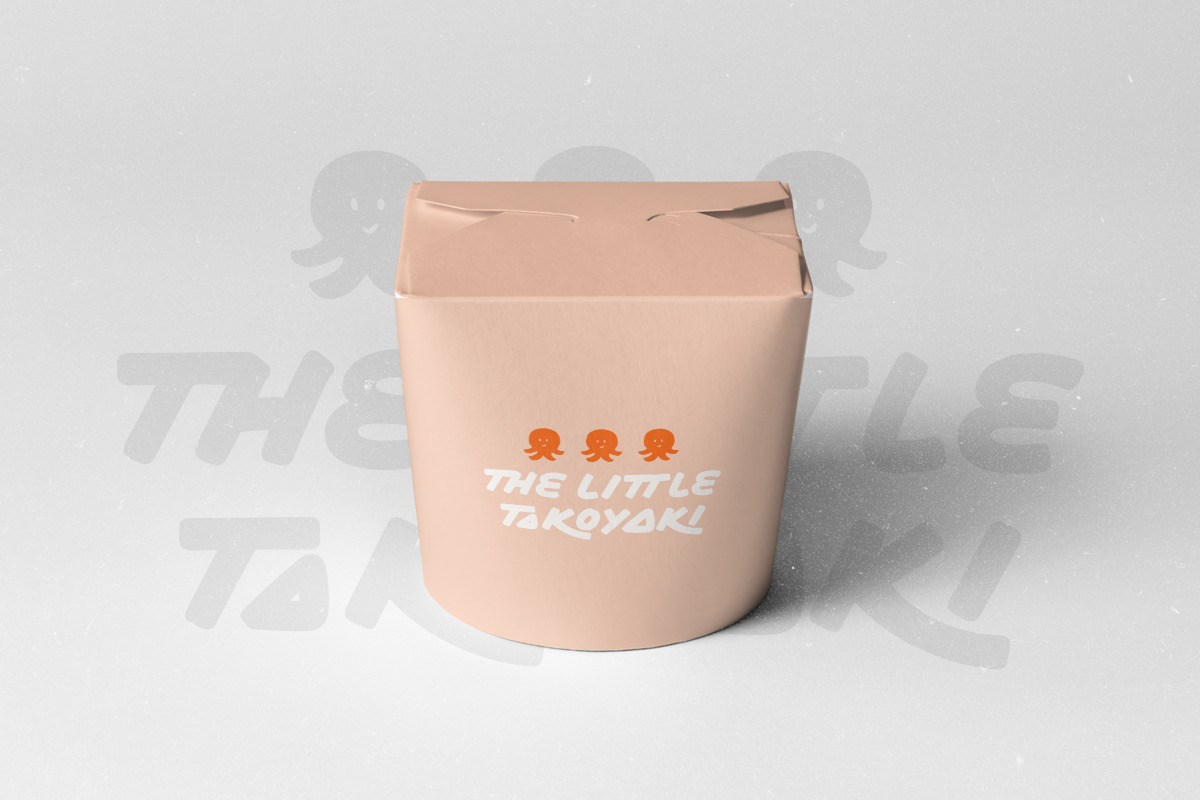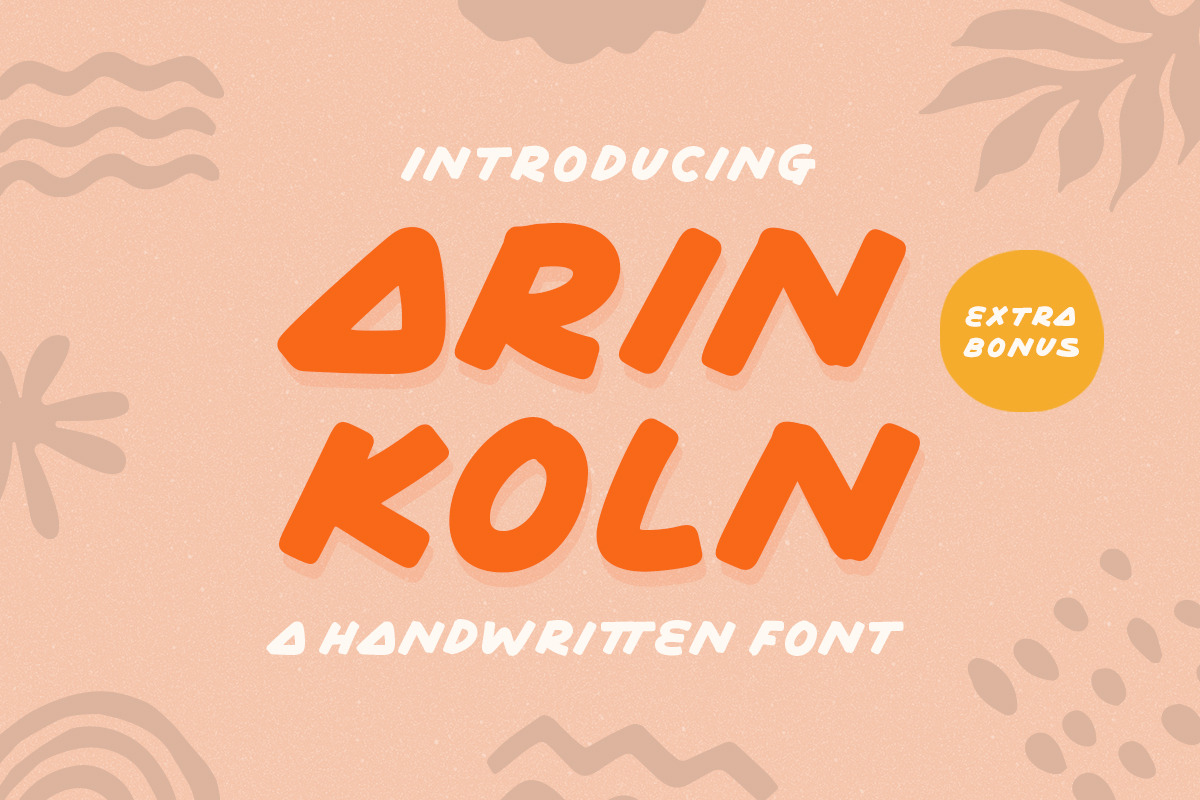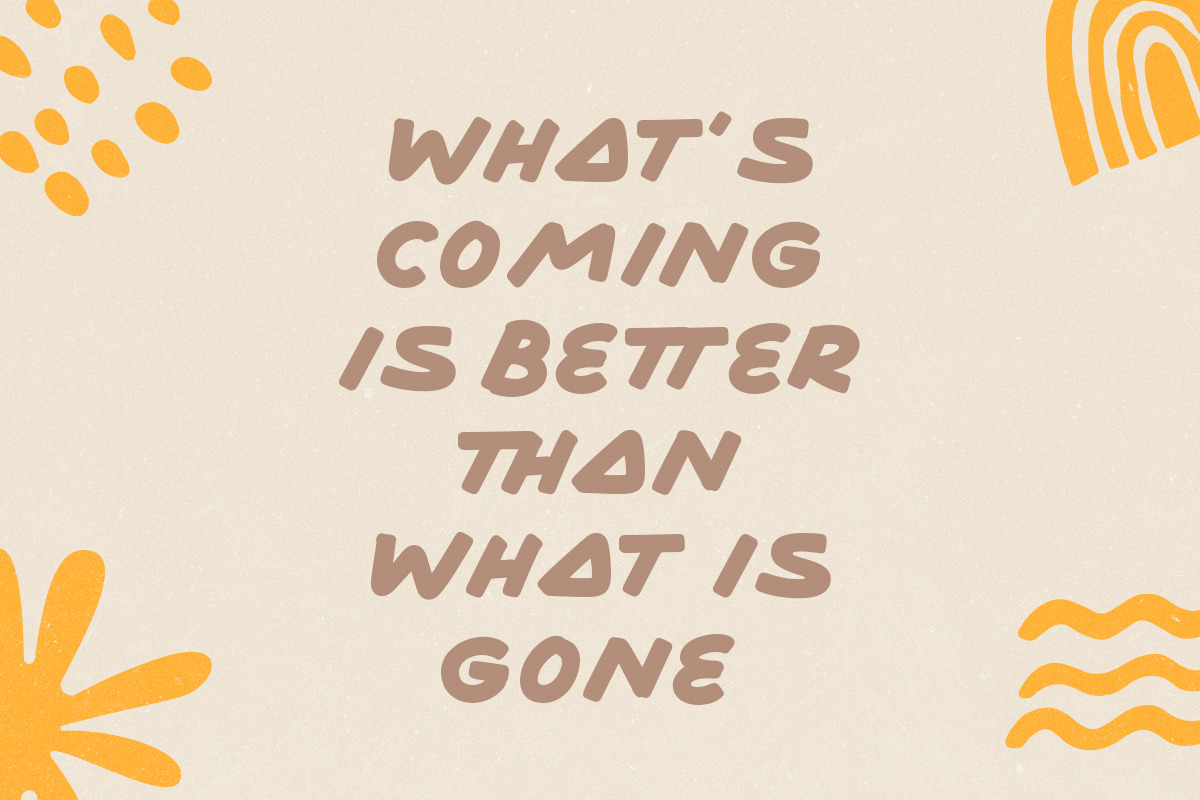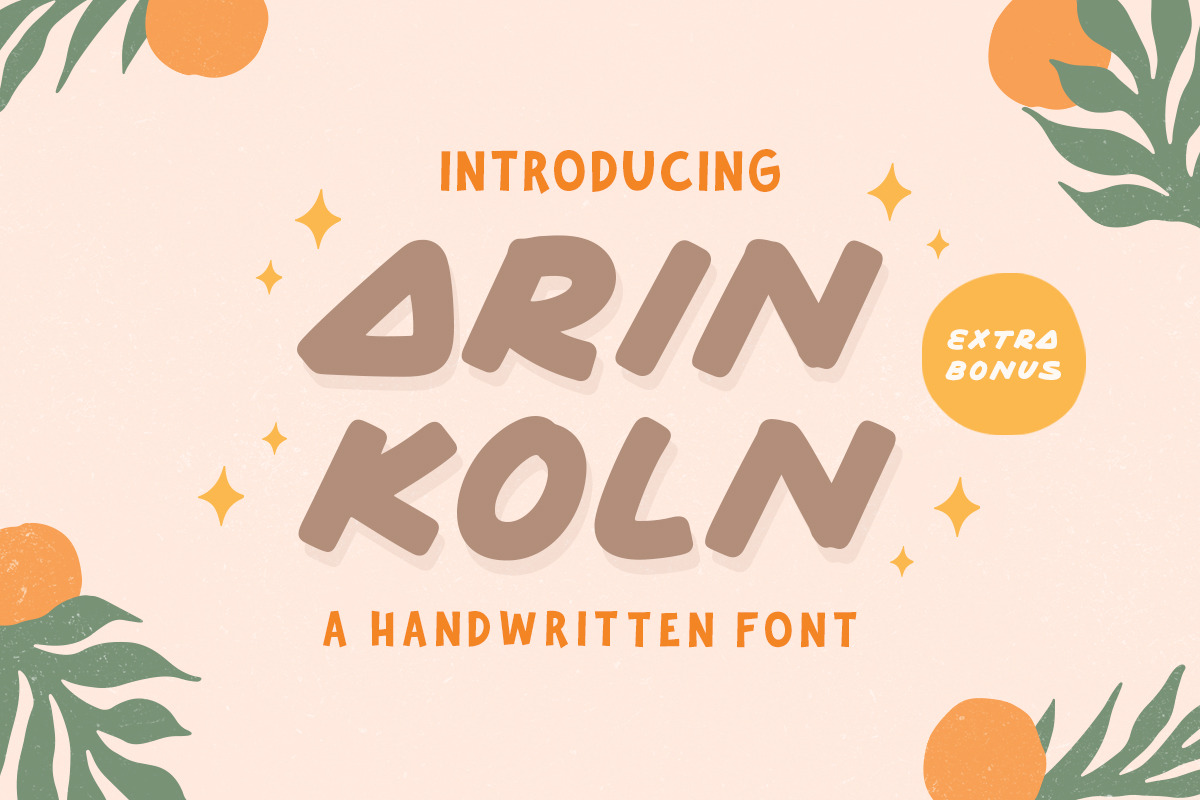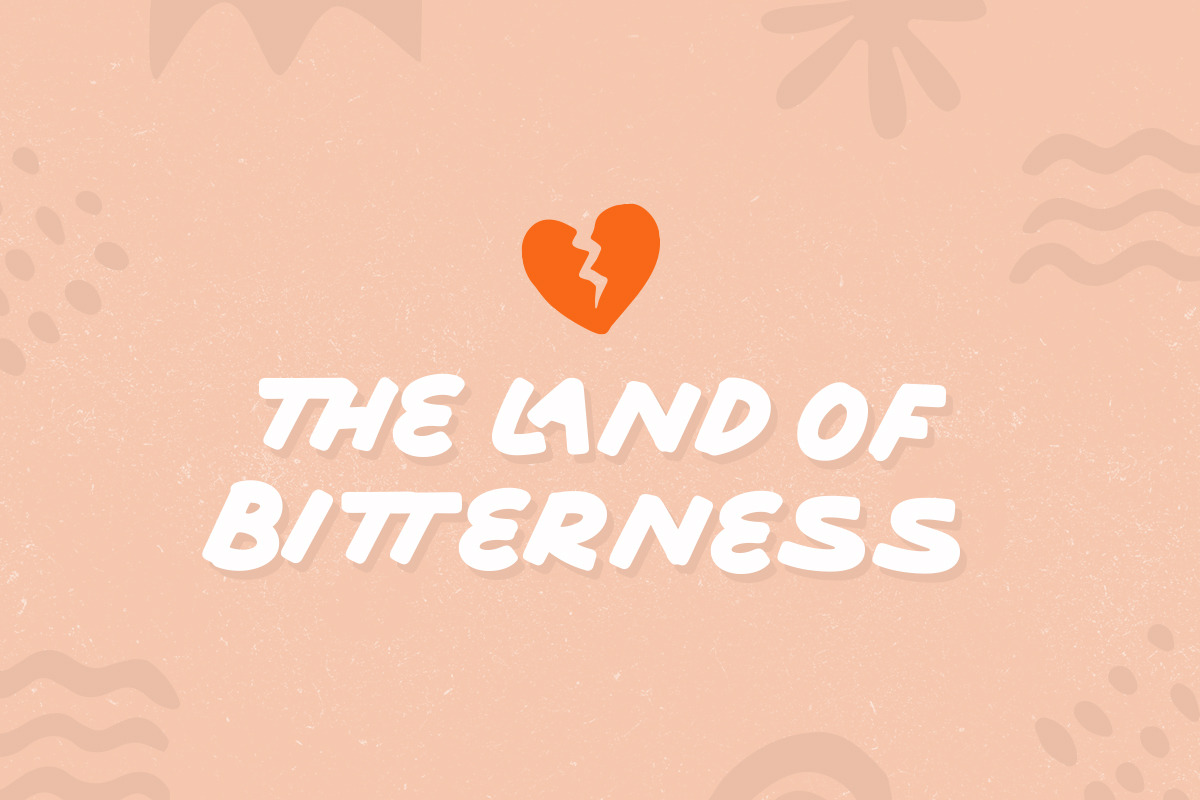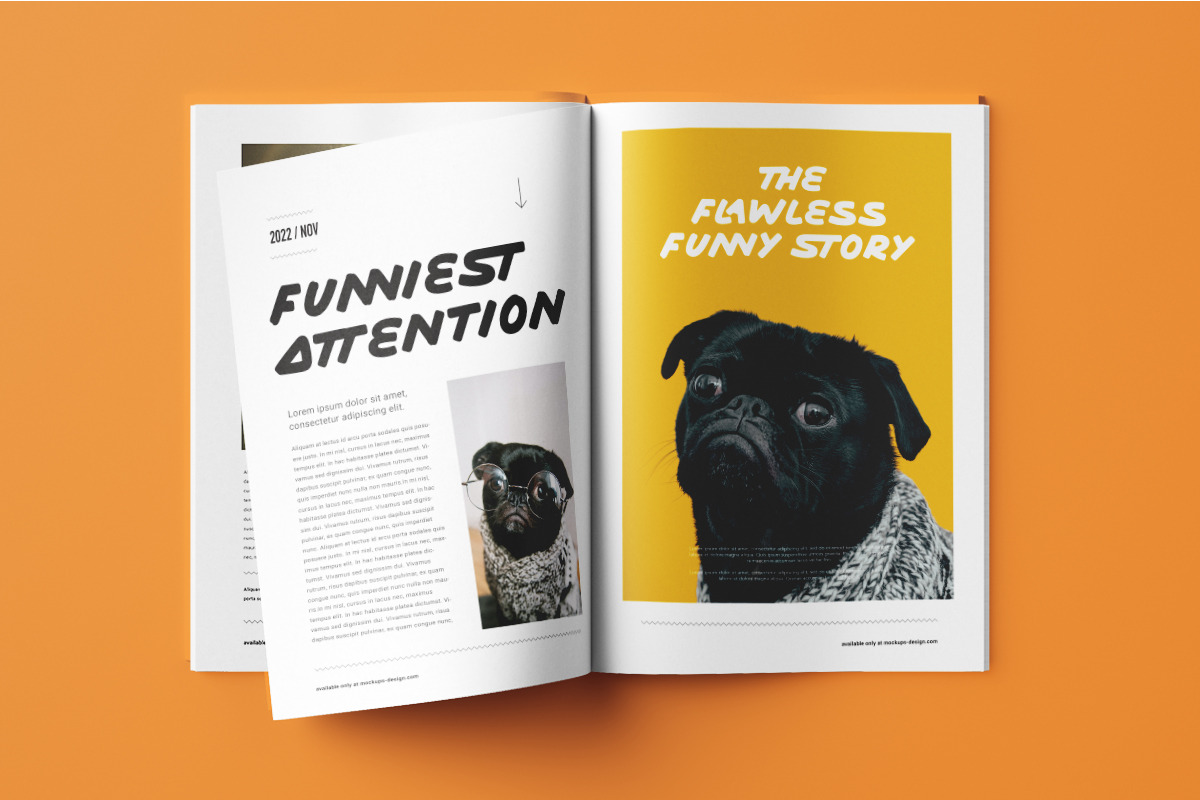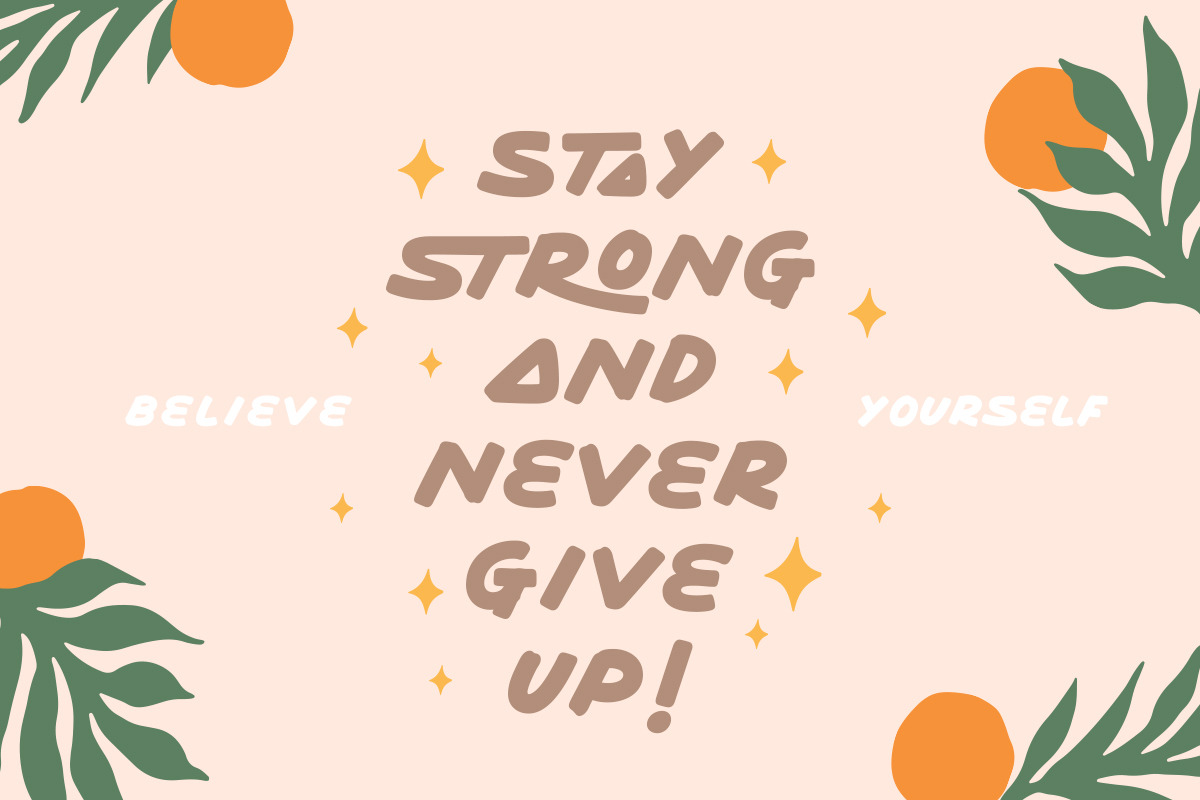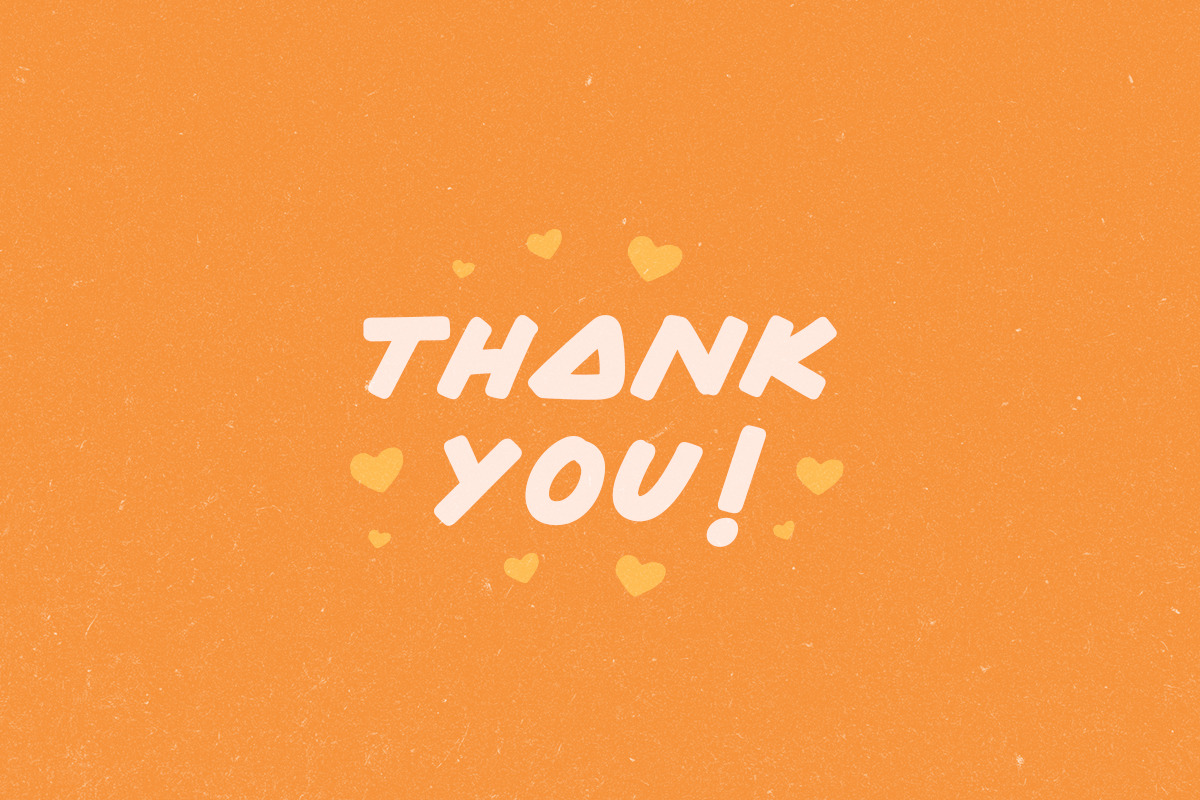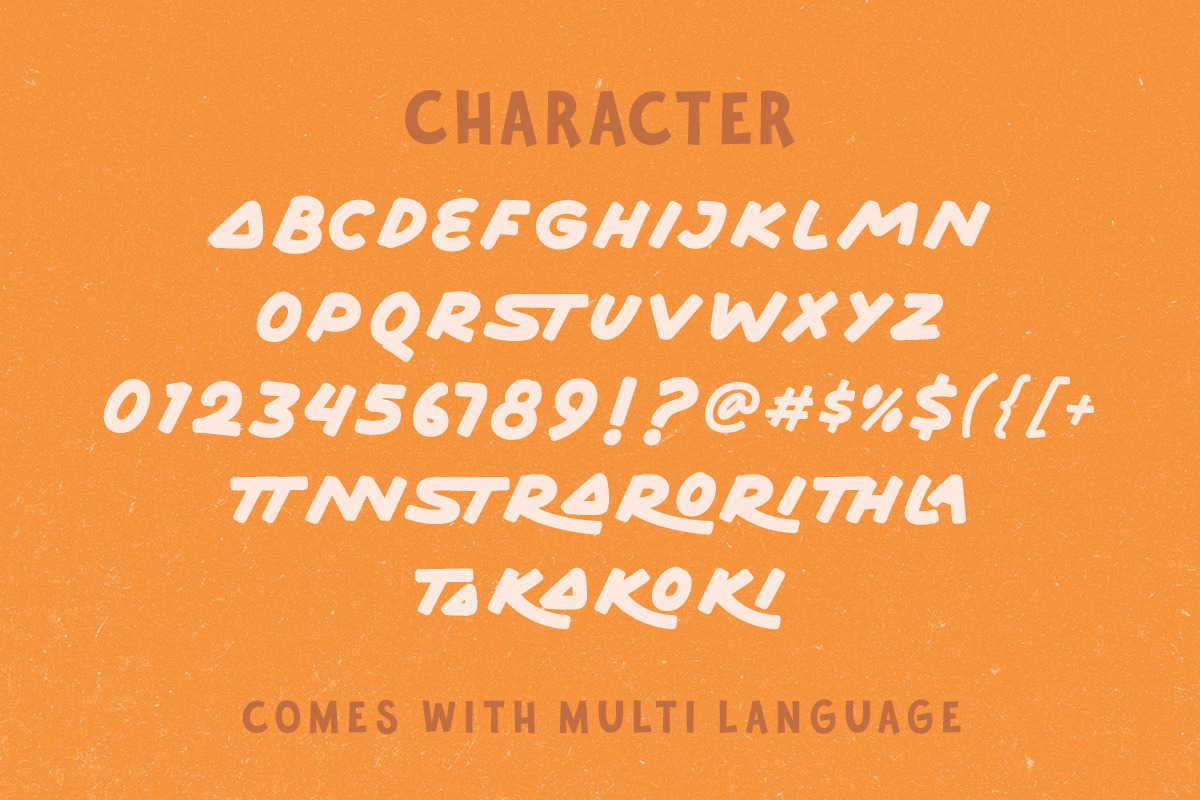
Arin Koln - Handwritten Font
Arin Koln is a typeface with fun and playful looks. This type of font perfectly made to be applied especially in storybook children or child theme which is need a standout font, and the other various formal forms such as invitations, labels, logos, magazines, books, greeting / wedding cards, packaging, fashion, make up, stationery, novels, labels or any type of advertising purpose.